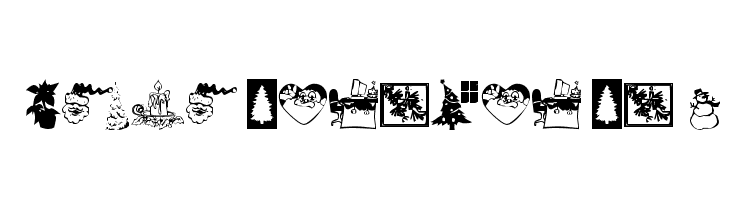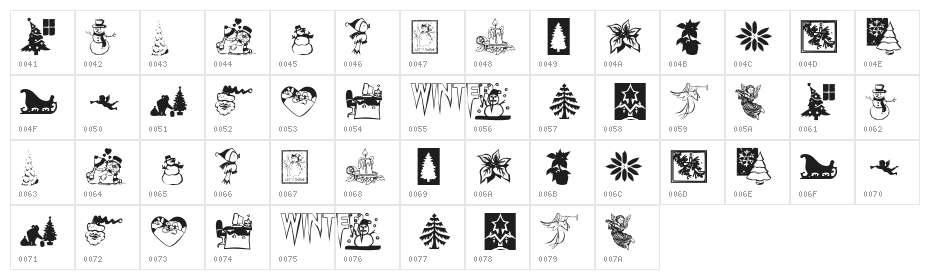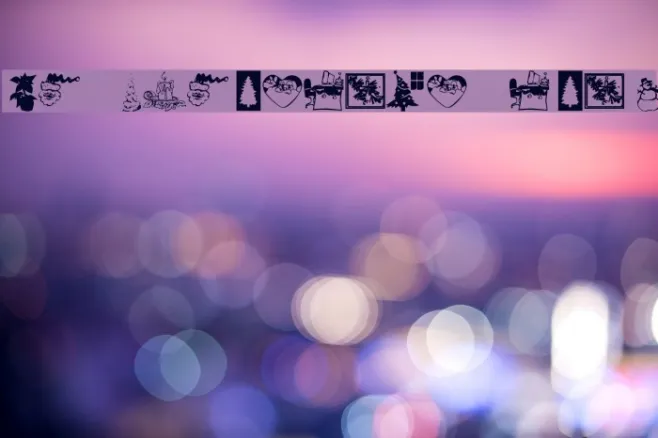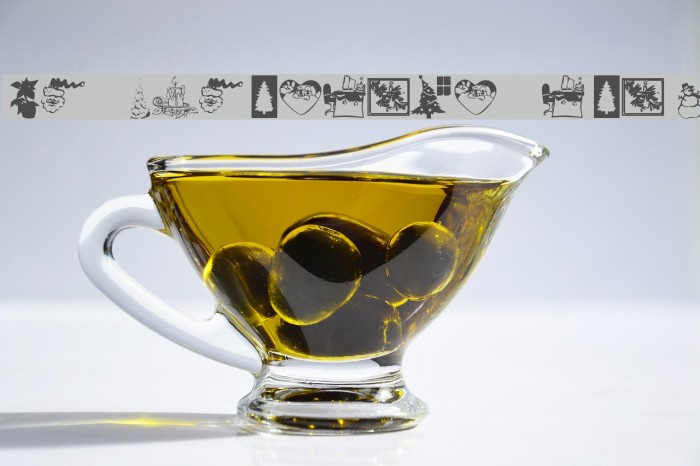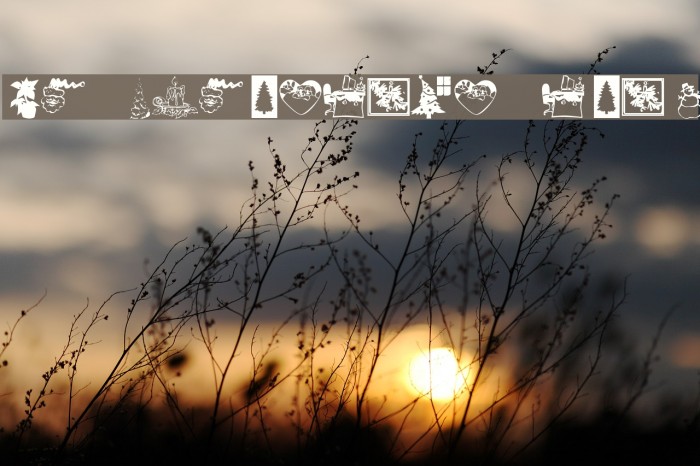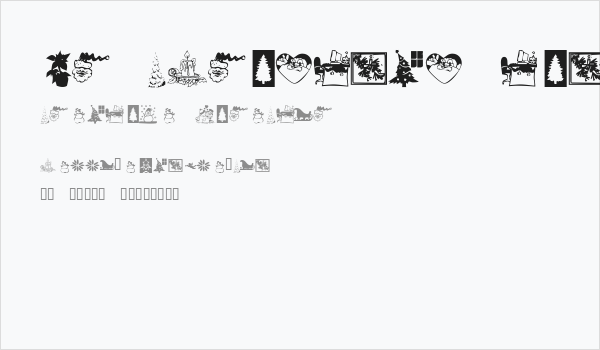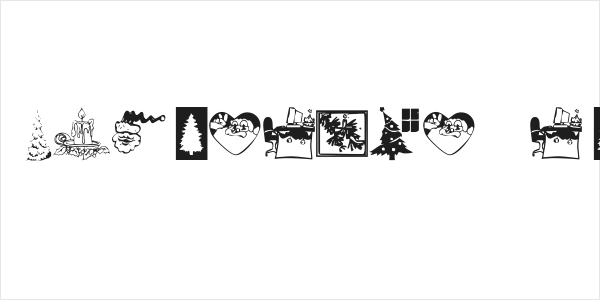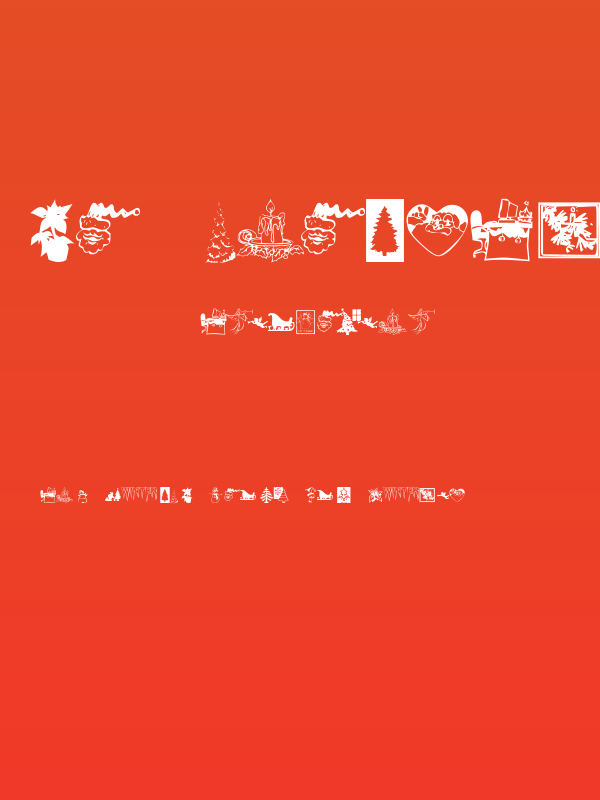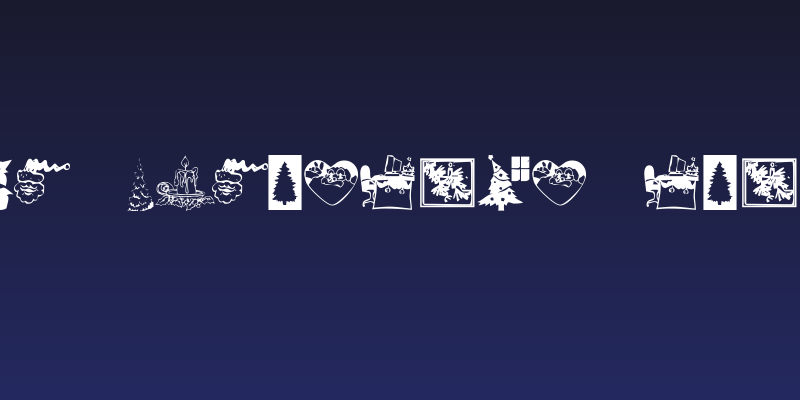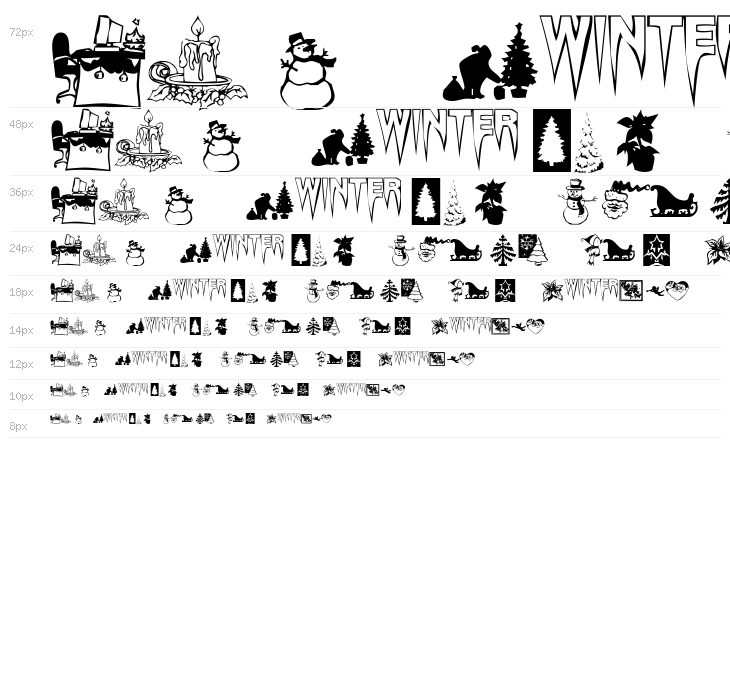
KR Christmas Time Font
KR Christmas Time Description
This font is a decorative collection of Christmas-themed illustrations rather than traditional alphanumeric characters. Each character is represented by a unique festive icon, such as snowmen, Christmas trees, snowflakes, and other holiday motifs. These icons are detailed and whimsical, capturing the essence of the holiday season with playful and intricate designs. The style is consistent throughout, offering a cohesive set of images that can be used to add a festive touch to any project. The icons are bold and clear, making them suitable for various decorative purposes.
| Use Case | Logos, Headlines, Decorative elements |
| Proposed Projects | Ideal for holiday greeting cards, festive invitations, Christmas-themed posters, and seasonal decorations. |